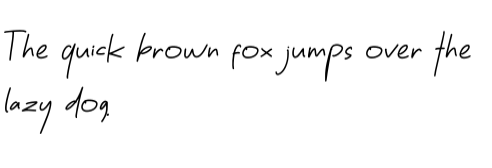
Introducing Roller Bread Font: Elevate Your Designs with Elegance and Simplicity
Are you looking for a font that can add a touch of elegance and modernity to your graphic projects? Look no further than Roller Bread Font, a smooth, monoline handwriting font designed with unique and elegant character shapes. In this article, we’ll explore the features and benefits of Roller Bread Font, and how it can enhance your branding, packaging, invitations, and more.
What is Roller Bread Font?
Roller Bread Font is a carefully crafted, monoline handwriting font that boasts a smooth and elegant appearance. Its unique character shapes set it apart from other fonts, making it perfect for designers looking to add a fresh and modern touch to their work. Whether you’re creating branding materials, packaging, invitations, or any other graphic project, Roller Bread Font is designed to bring simplicity and creativity to your designs.
Key Features of Roller Bread Font
• Smooth and Monoline Design: Roller Bread Font features a smooth, monoline design that gives it a sleek and modern appearance.
• Unique and Elegant Character Shapes: Each character in Roller Bread Font has been carefully designed with unique and elegant shapes that set it apart from other fonts.
• Clean and Versatile Style: The clean and versatile style of Roller Bread Font makes it perfect for a wide range of graphic projects, from branding and packaging to invitations and more.
• Easy to Read and Use: Despite its elegant appearance, Roller Bread Font is easy to read and use, making it perfect for both digital and print applications.
Benefits of Using Roller Bread Font
So why should you choose Roller Bread Font for your graphic projects? Here are just a few benefits of using this versatile and elegant font:
• Adds a Touch of Elegance: Roller Bread Font brings a touch of elegance and sophistication to any graphic project, making it perfect for high-end branding and design applications.
• Versatile and Adaptable: The clean and versatile style of Roller Bread Font makes it adaptable to a wide range of design applications, from modern and minimalist to elegant and sophisticated.
• Enhances Creativity: With its unique and elegant character shapes, Roller Bread Font can help stimulate your creativity and inspire new ideas for your graphic projects.
• Easy to Pair with Other Fonts: Roller Bread Font is easy to pair with other fonts, making it perfect for use in combination with other typography styles.
How to Use Roller Bread Font in Your Designs
Using Roller Bread Font in your designs is easy. Here are a few tips to get you started:
• Branding and Logo Design: Use Roller Bread Font to create elegant and sophisticated branding and logo designs that stand out from the competition.
• Packaging Design: Add a touch of elegance and modernity to your packaging designs with Roller Bread Font.
• Invitations and Stationery: Use Roller Bread Font to create beautiful and elegant invitations and stationery that make a lasting impression.
• Digital Applications: Roller Bread Font is perfect for use in digital applications, such as website headers, social media graphics, and more.
Tips for Getting the Most Out of Roller Bread Font
Here are a few tips for getting the most out of Roller Bread Font:
• Experiment with Different Sizes and Colors: Don’t be afraid to experiment with different sizes and colors of Roller Bread Font to find the perfect combination for your design.
• Pair with Other Fonts: Try pairing Roller Bread Font with other fonts to create a unique and visually appealing typography style.
• Use in Combination with Images: Use Roller Bread Font in combination with images to create a beautiful and effective visual design.
In conclusion, Roller Bread Font is a smooth, monoline handwriting font designed with unique and elegant character shapes. Its clean and versatile style makes it perfect for a wide range of graphic projects, from branding and packaging to invitations and more. With its ease of use, elegance, and versatility, Roller Bread Font is the perfect choice for designers looking to add a touch of sophistication and modernity to their work.
FAQs About Roller Bread Font
• What is Roller Bread Font?: Roller Bread Font is a smooth, monoline handwriting font designed with unique and elegant character shapes.
• What is Roller Bread Font used for?: Roller Bread Font is perfect for a wide range of graphic projects, including branding, packaging, invitations, and more.
• Is Roller Bread Font easy to use?: Yes, Roller Bread Font is easy to use and can be easily integrated into a wide range of design applications.